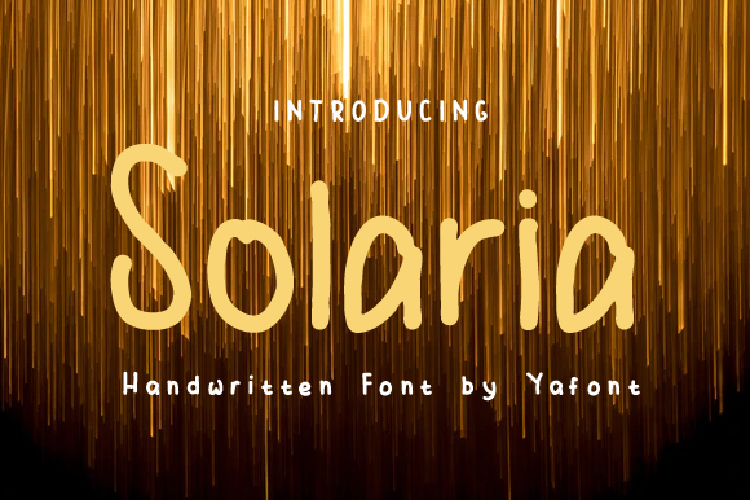
Solaria Font
About Solaria Font
Solaria is a sweet and friendly handwritten font. Its natural and unique style makes it incredibly fitting to a large pool of designs. It is the best choice for creating eye catching logos, branding and quotes.